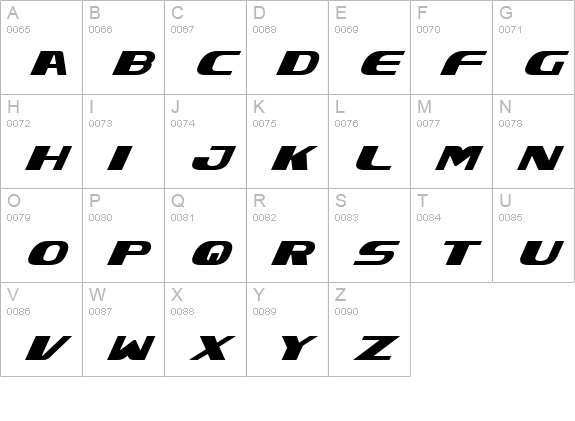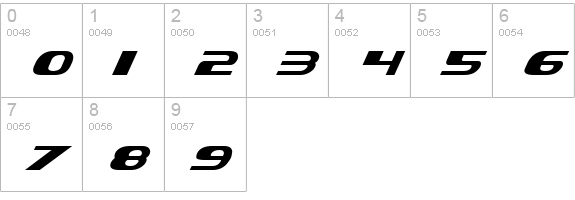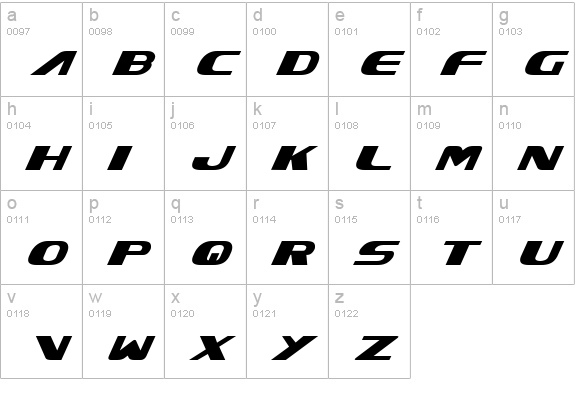
Xcelsion Italic Font Details
Xcelsion Italic is a distinctive, italic variant in the Xcelsion typeface family \xE2\x80\x94 well suited to design and typography projects.
Introducing Xcelsion Italic font - a sleek and modern typeface that exudes elegance and sophistication. With its slanted and stylish design, Xcelsion Italic is perfect for adding a touch of flair to your projects. Whether you're designing a logo, creating a poster, or crafting a website, this font will elevate your work to the next level. The best part? Xcelsion Italic is completely free to download at FontsMarket.com. That's right, you can enhance your designs with this stunning font without spending a dime. Don't miss out on the opportunity to make your projects stand out with Xcelsion Italic - download it today and let your creativity shine!